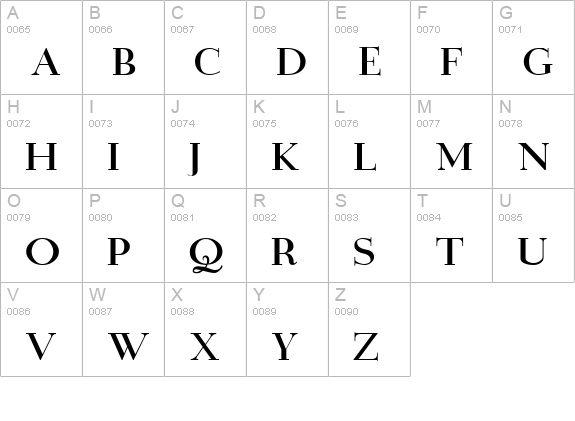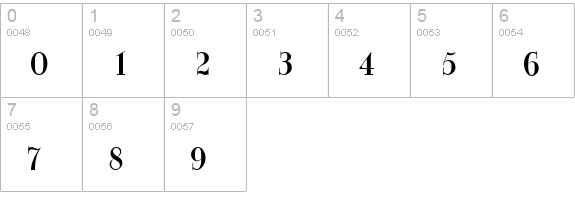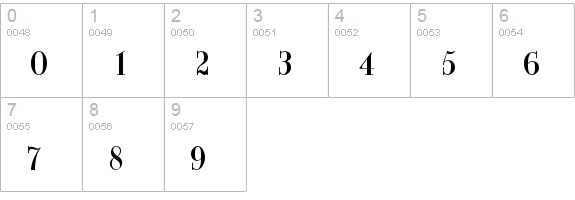
GrailNew font is a stunning and versatile typeface that exudes elegance and sophistication. With its sleek lines and modern design, this font is perfect for a wide range of projects, from branding to packaging to editorial design. The sharp, angular letterforms of GrailNew font make a bold statement, while still maintaining a sense of refinement and class. Best of all, GrailNew font is available for free download at FontsMarket.com. This means you can easily access this high-quality font and use it in your projects without any cost. Whether you're a professional designer looking for a new font to add to your collection or a hobbyist searching for the perfect typeface for your next project, GrailNew font is sure to impress. Download it today and elevate your designs with this exceptional font.